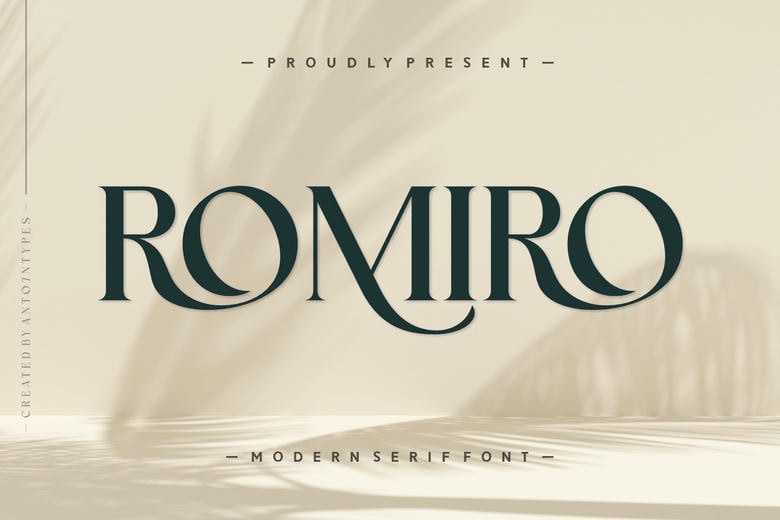
Romiro Font
Romiro is a serif font that seamlessly merges elegance and modernity. This universal font suits perfectly with the captures of the photographs and emphasizes any design layout. By making itself an essential part of branding, Romiro makes its presence in the apparel and book cover designs authentic. It is smooth and rounded, perfect in creating cards, magazine designs, and packaging.
Romiro is a bold statement as a greeting card or a logotype font. Its smooth lines and stylish nature are conspicuous, whether it is on a t-shirt or a quote. Provide a little bit of an elegant touch with its ligatures and swashes and serve a global population with its multilingual capabilities. Romiro is not only a font, it is a statement of design and utilization.
Romiro Serif Font